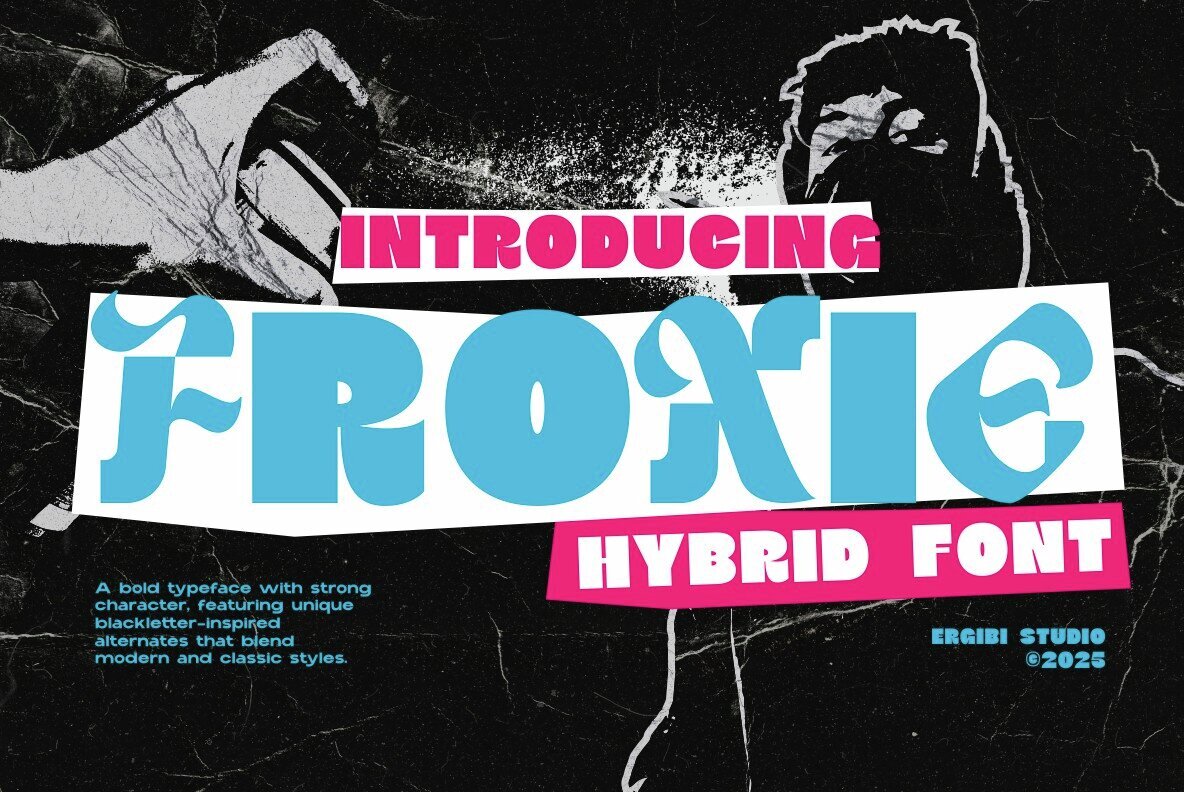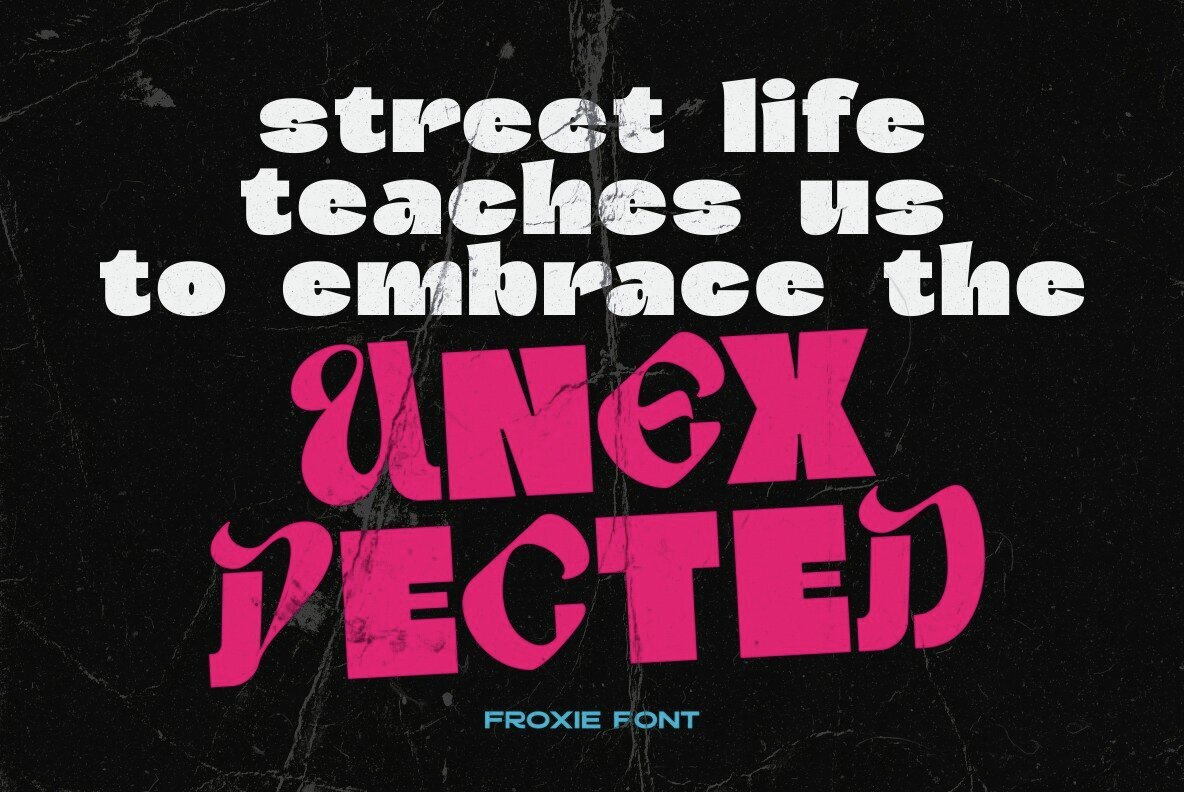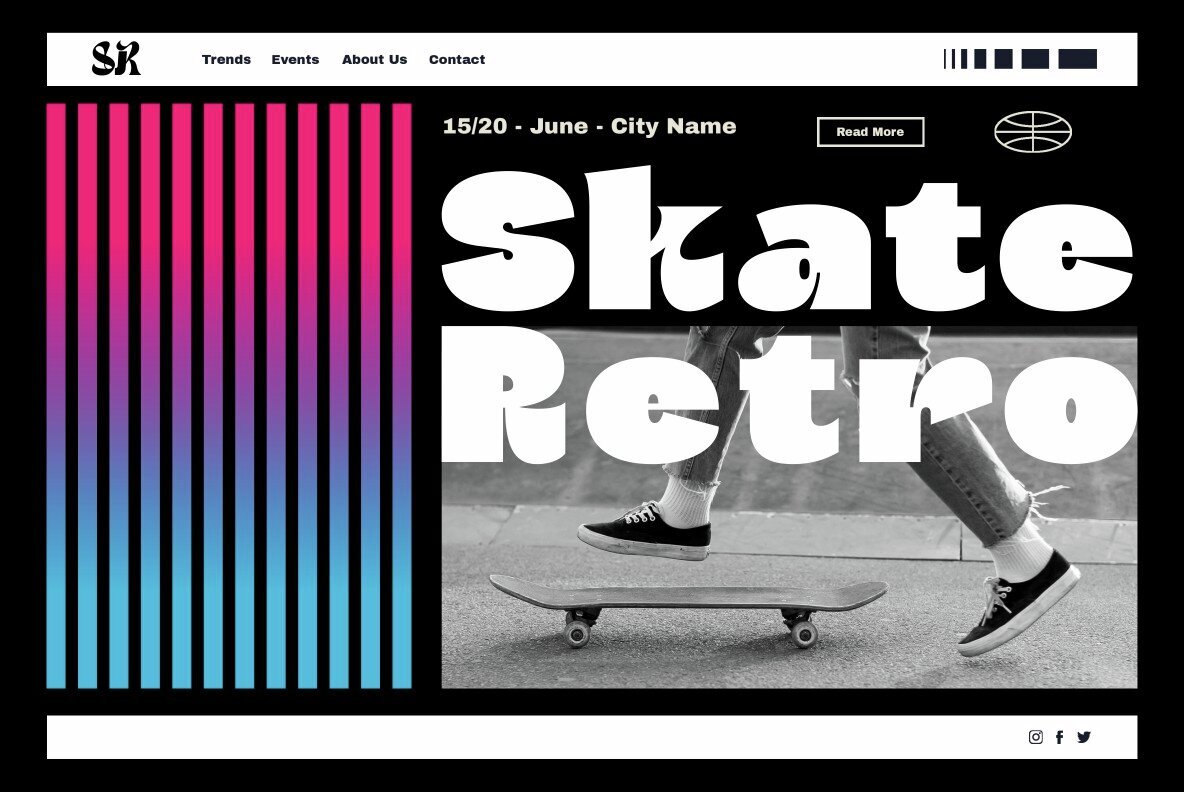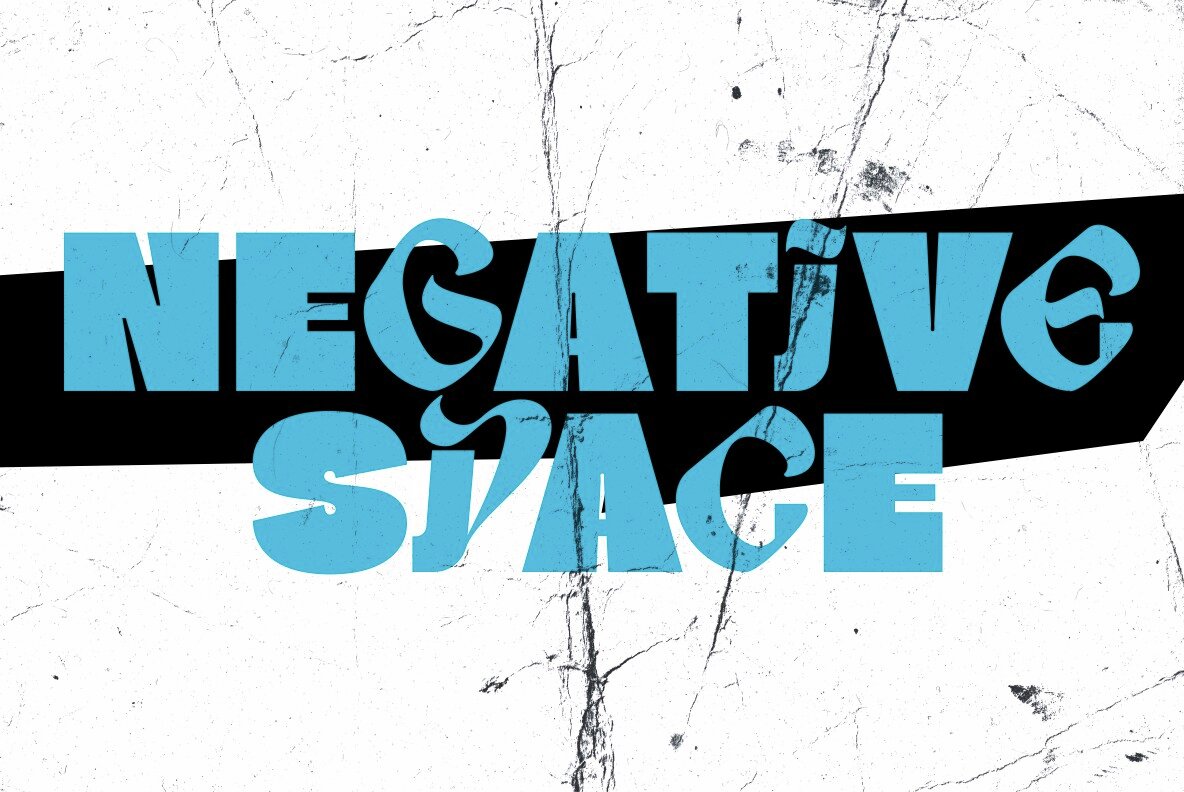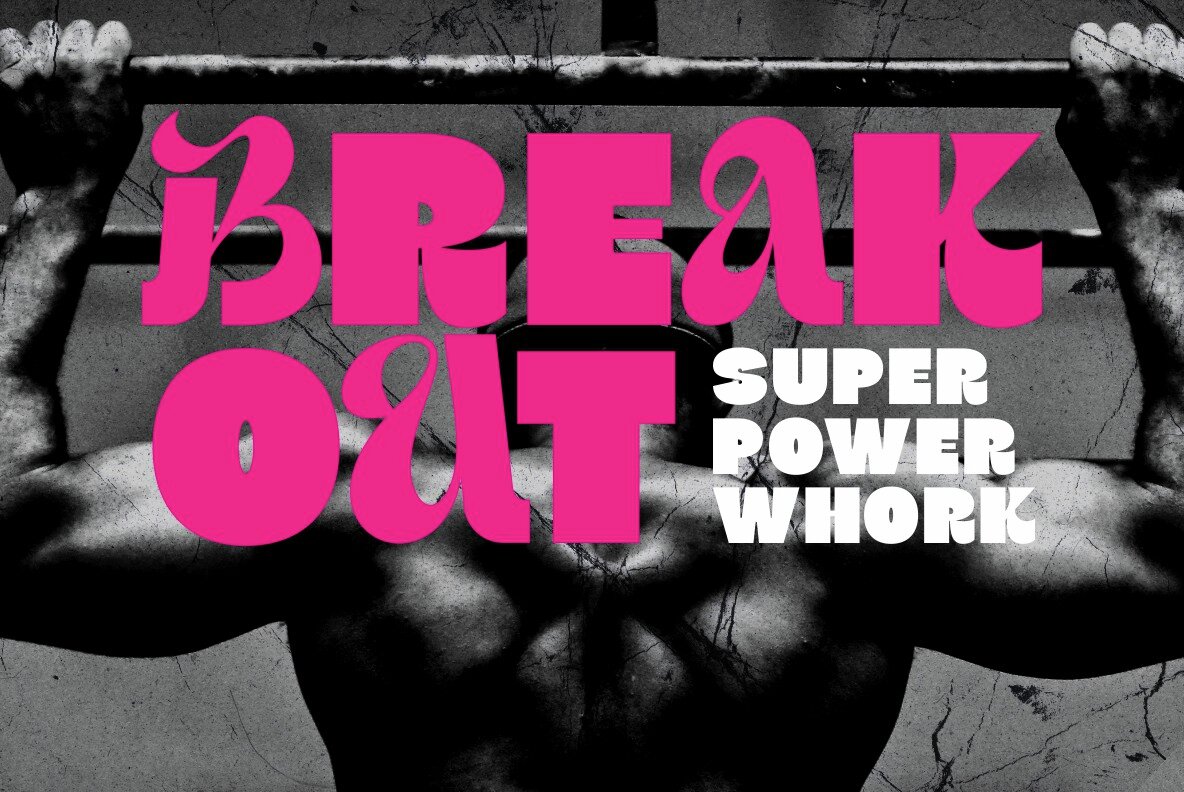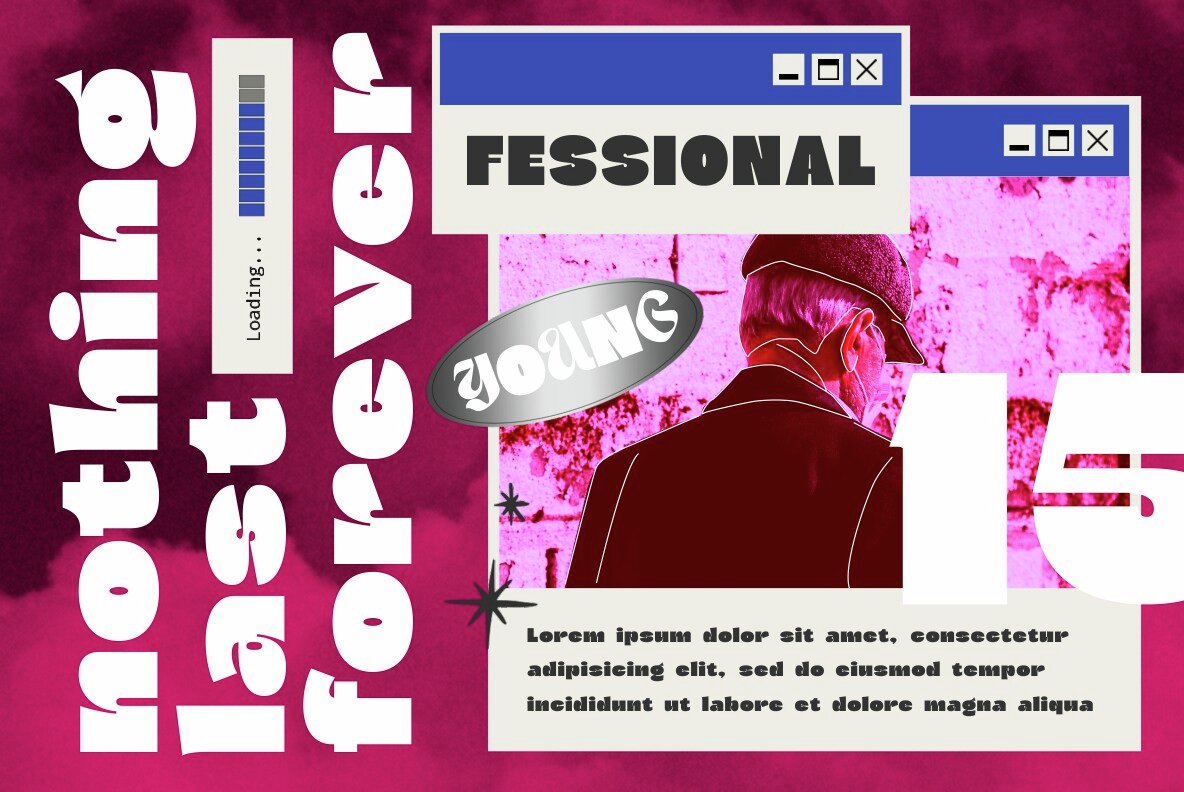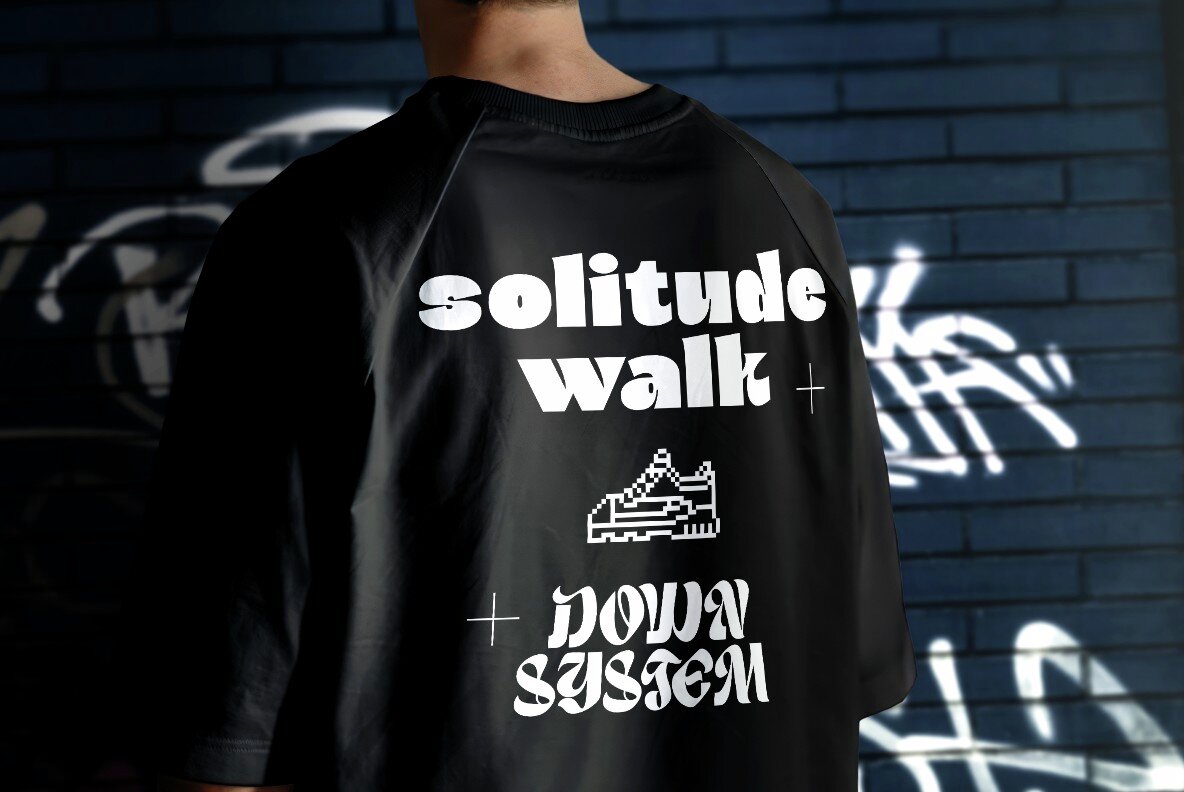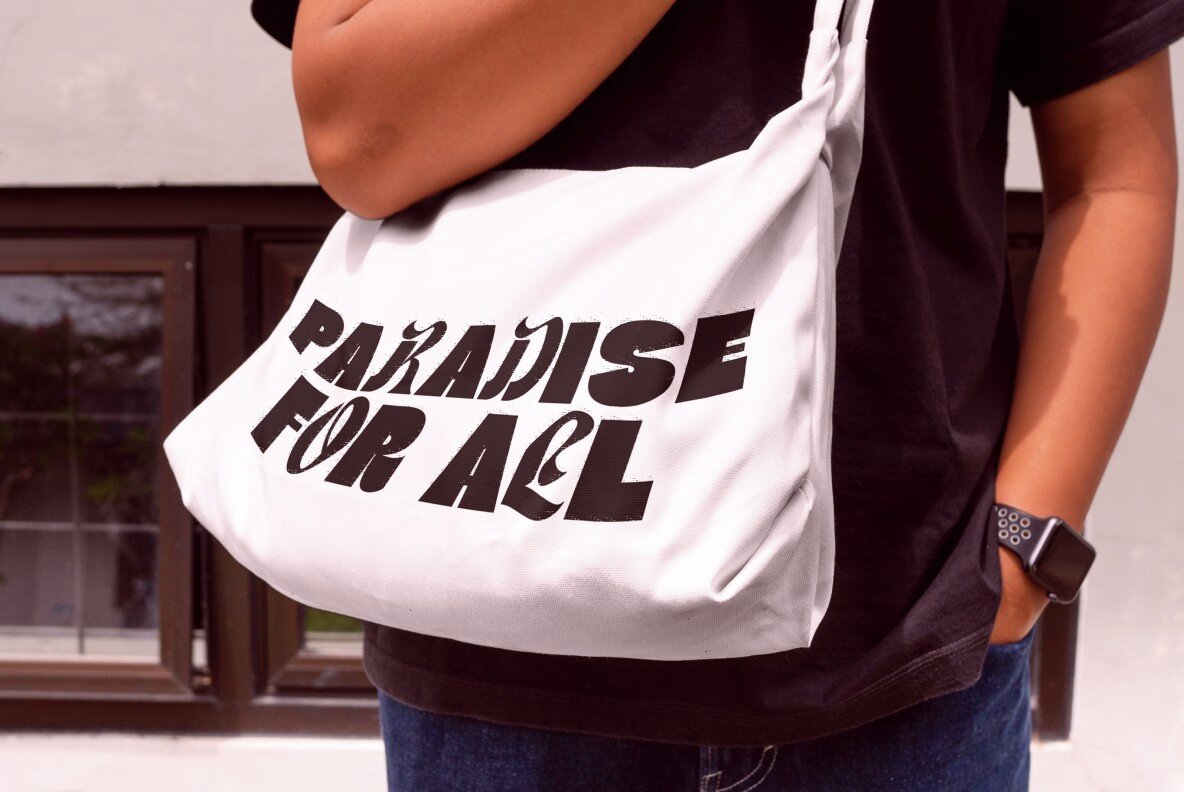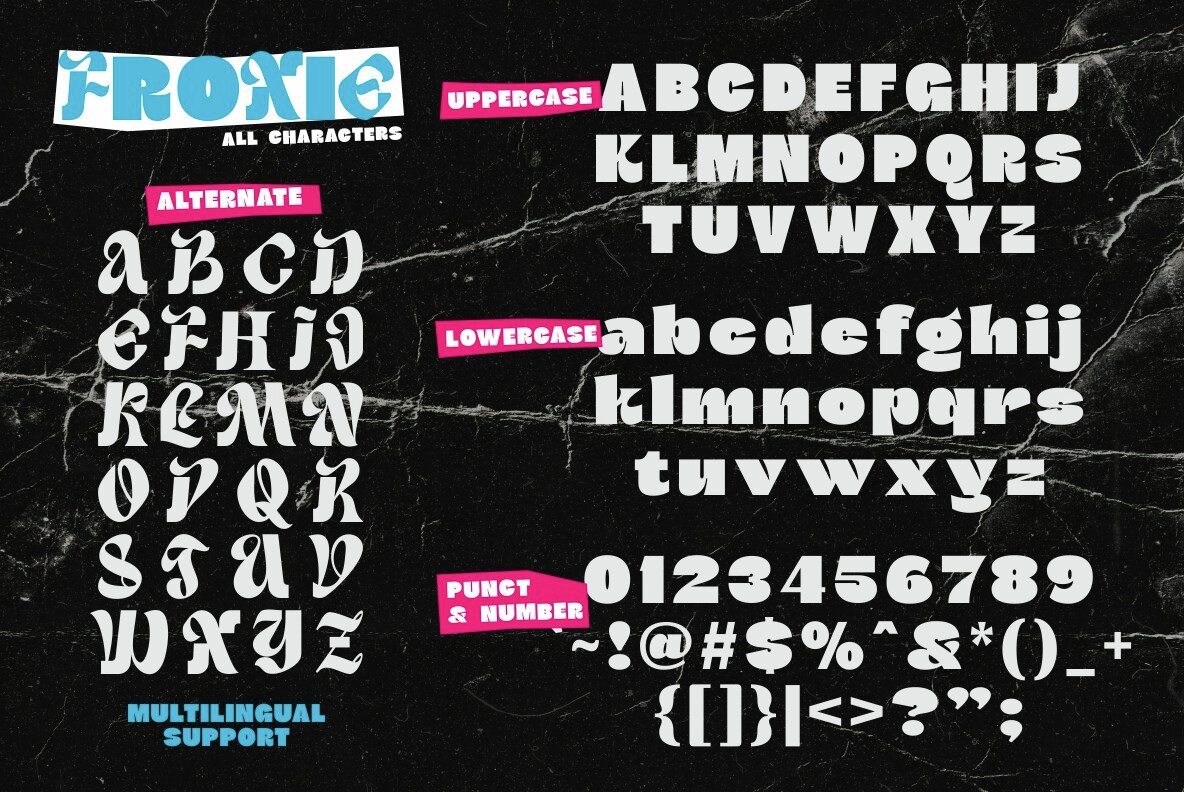
Froxie Font
Froxie
Froxie is a fascinating typeface that seamlessly merges the straightforward clarity of a modern sans serif with the ornate allure of classic blackletter. This unique fusion yields a typeface that feels both contemporary and reminiscent of historical scripts, ideal for projects seeking distinction with a refined touch. The sans serif foundation ensures easy readability, while the intricate blackletter embellishments offer character and depth. This harmonious combination makes Froxie an excellent option for branding, editorial design, fashion logos, and street-style-inspired visuals.Froxie: A Hybrid Typeface Melding Modernism and Tradition